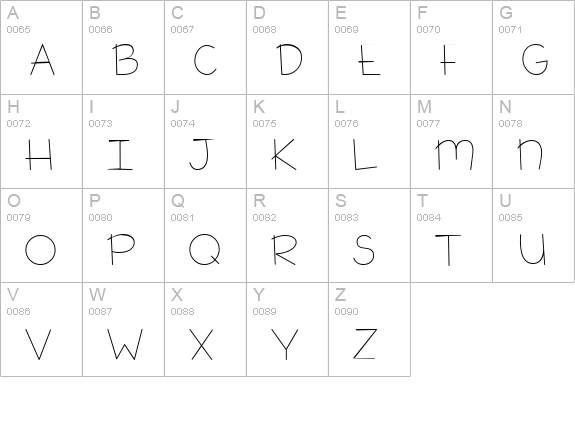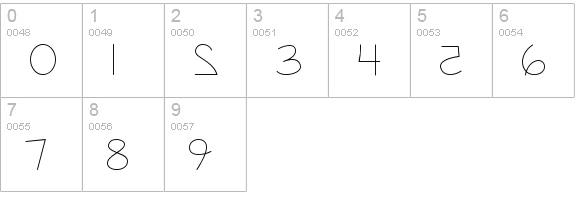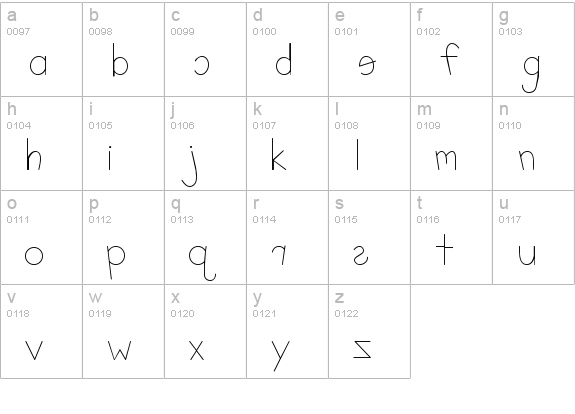
CK Kindergarden Font Details
Introducing CK Kindergarten font, a charming and playful typeface perfect for all your child-friendly design projects. This delightful font showcases a whimsical and hand-drawn style that will bring a sense of fun and joy to any creation. With its friendly and approachable appearance, CK Kindergarten is ideal for children's books, educational materials, invitations, and more. The best part? CK Kindergarten font is completely free to download at FontsMarket.com! Take advantage of this fantastic offer and add a touch of innocence and creativity to your designs with CK Kindergarten font today. Let your imagination run wild and watch as this delightful font brings a smile to everyone who sees it. Download now and let your creativity soar with CK Kindergarten font.